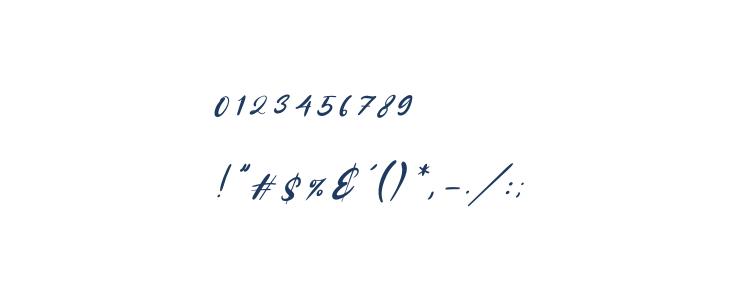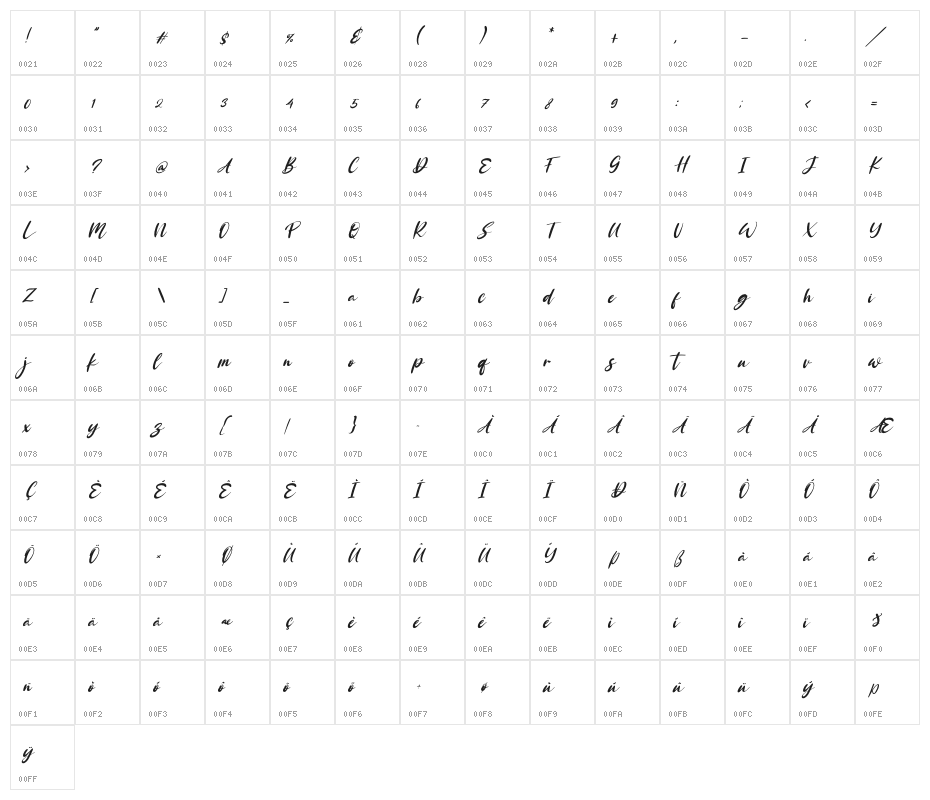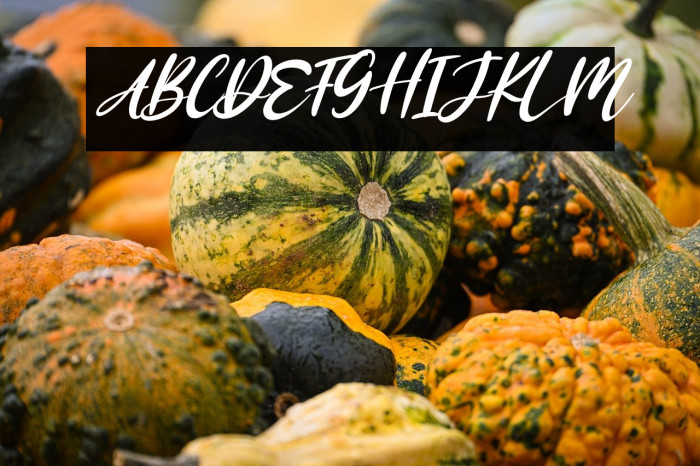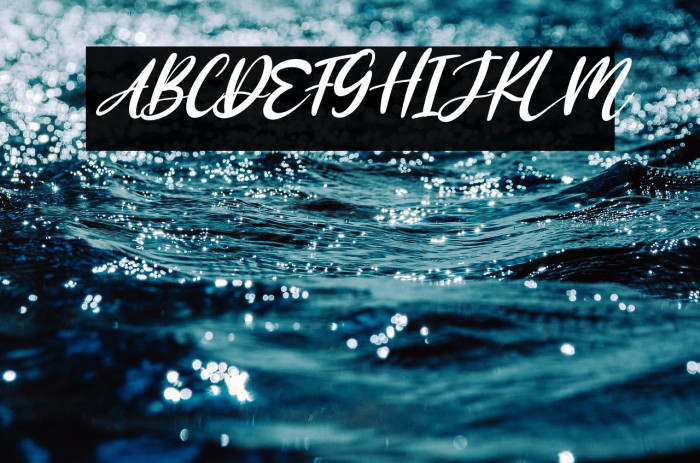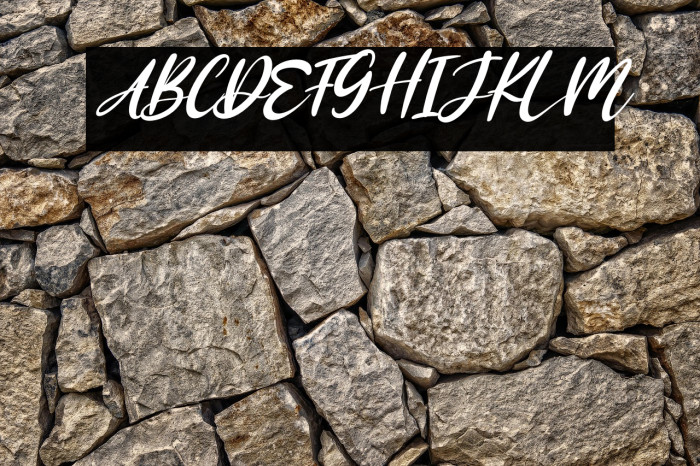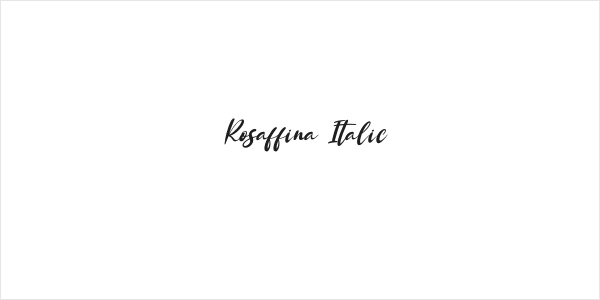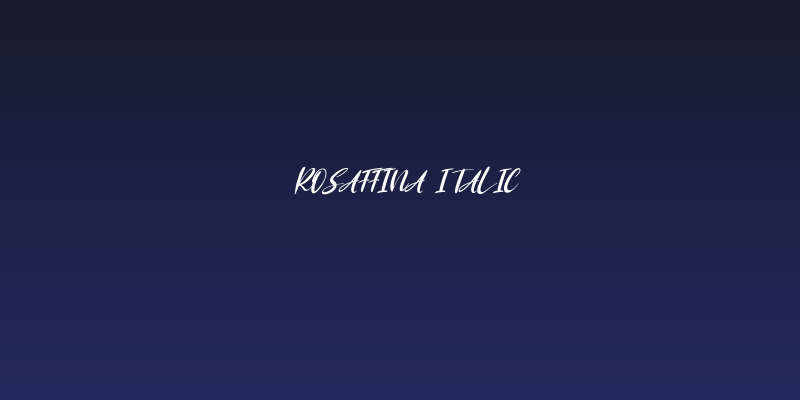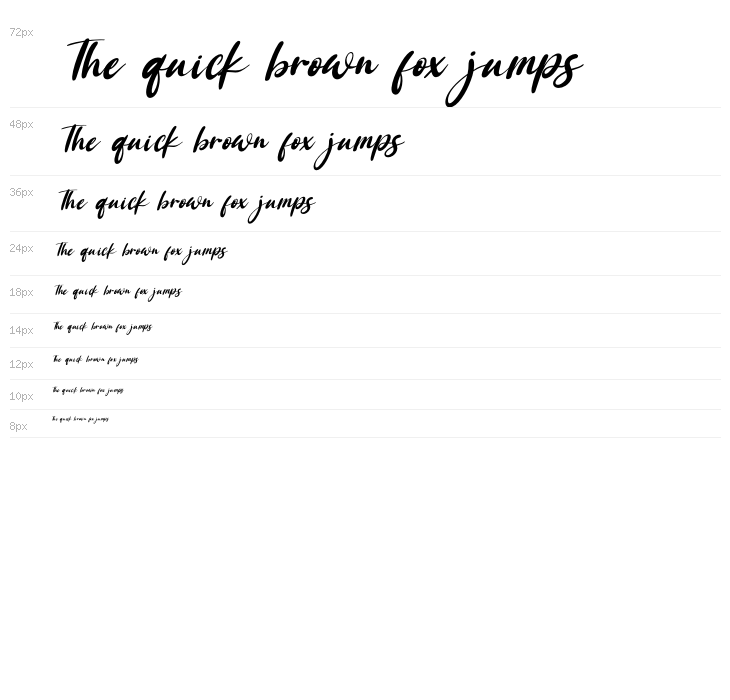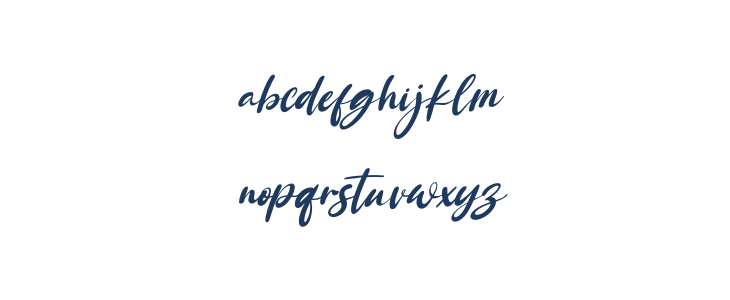
Rosaffina Italic Font
Rosaffina Italic Description
This font exudes a sense of elegance and fluidity, characterized by its cursive and flowing script style. The letters are interconnected, creating a seamless and harmonious appearance. The strokes are smooth and slightly varied in thickness, adding a dynamic and lively feel. The uppercase letters are bold and prominent, while the lowercase letters maintain a consistent and graceful flow. The numerals and special characters are designed to complement the overall aesthetic, ensuring versatility in various design contexts. This font is ideal for projects that require a touch of sophistication and artistic flair.
| Overall Style | Elegant, Artistic |
| Proposed Projects | Ideal for wedding invitations, branding, greeting cards, and elegant packaging designs. |